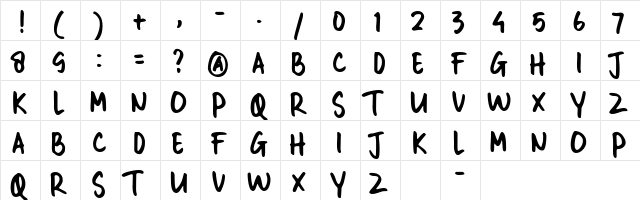
GUTHEN BLOOTS ALLCAPS Regular
Design Context for GUTHEN BLOOTS ALLCAPS Typeface
GUTHEN BLOOTS ALLCAPS is a composed and adaptable typeface that performs quietly and consistently across a wide range of design contexts.